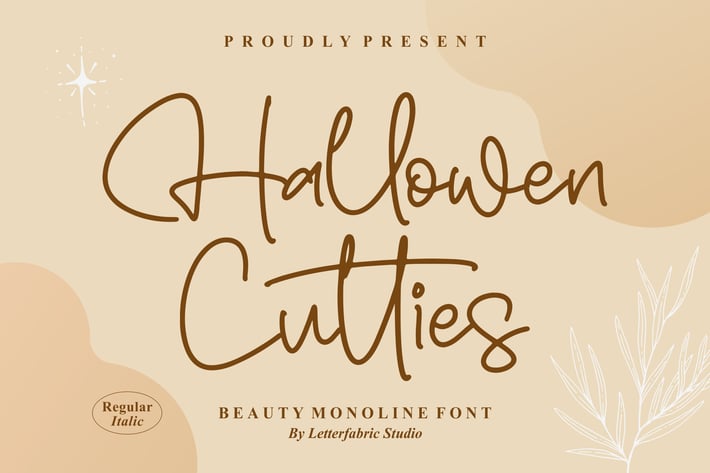
Hallowen Cutties Monoline Font
Hallowen Cutties is a soft and elegant monoline script font designed to bring warmth, charm, and a modern handwritten feel to any visual project. Its smooth curves, clean strokes, and effortlessly flowing lines make it perfect for brands that want to appear stylish, feminine, and approachable.
Beautiful monoline handwriting style
Smooth, flowing curves for an organic look
Regular & Italic styles included
Versatile + timeless aesthetic
Clean readability for digital & print
Brand identity & visual storytelling
Beauty & skincare promotions
Social media templates & aesthetic feeds
Packaging and product labels
Wedding stationery & invitations
Quote designs & lifestyle graphics
Creative personal projects
A chic monoline script that adds warmth, elegance, and effortless charm to every design.